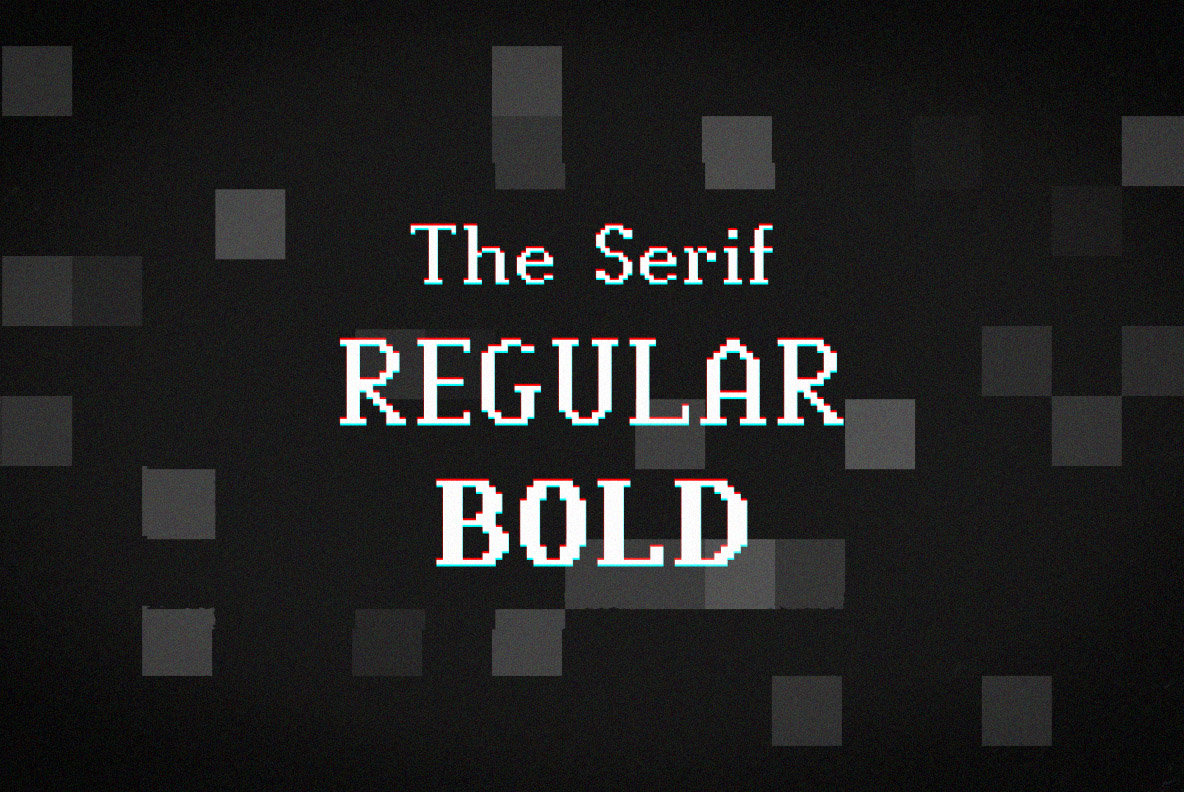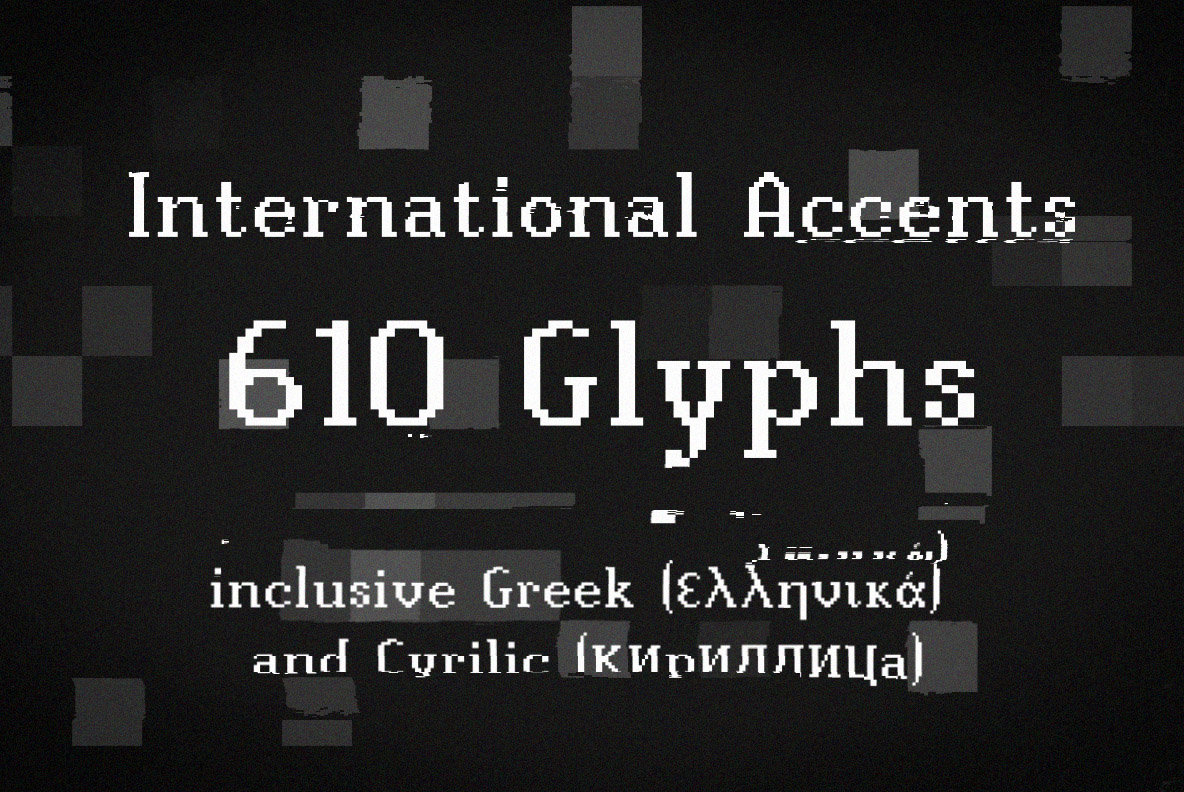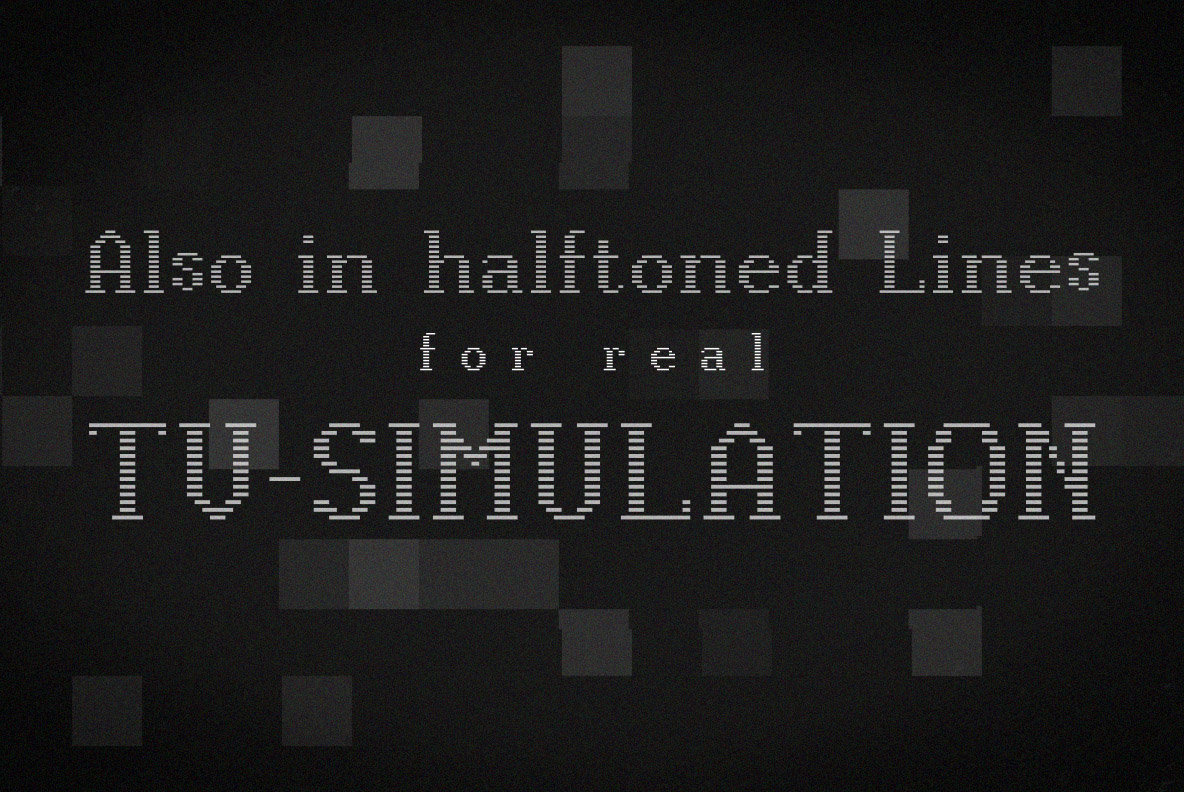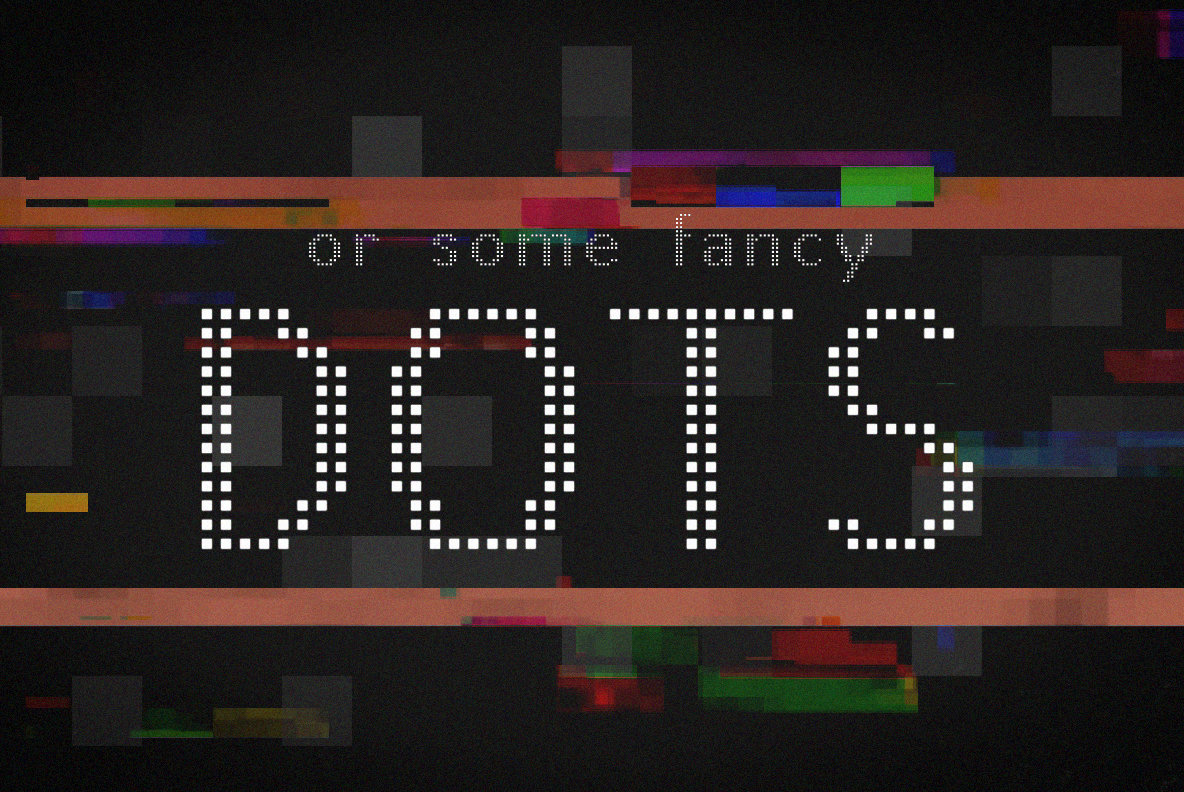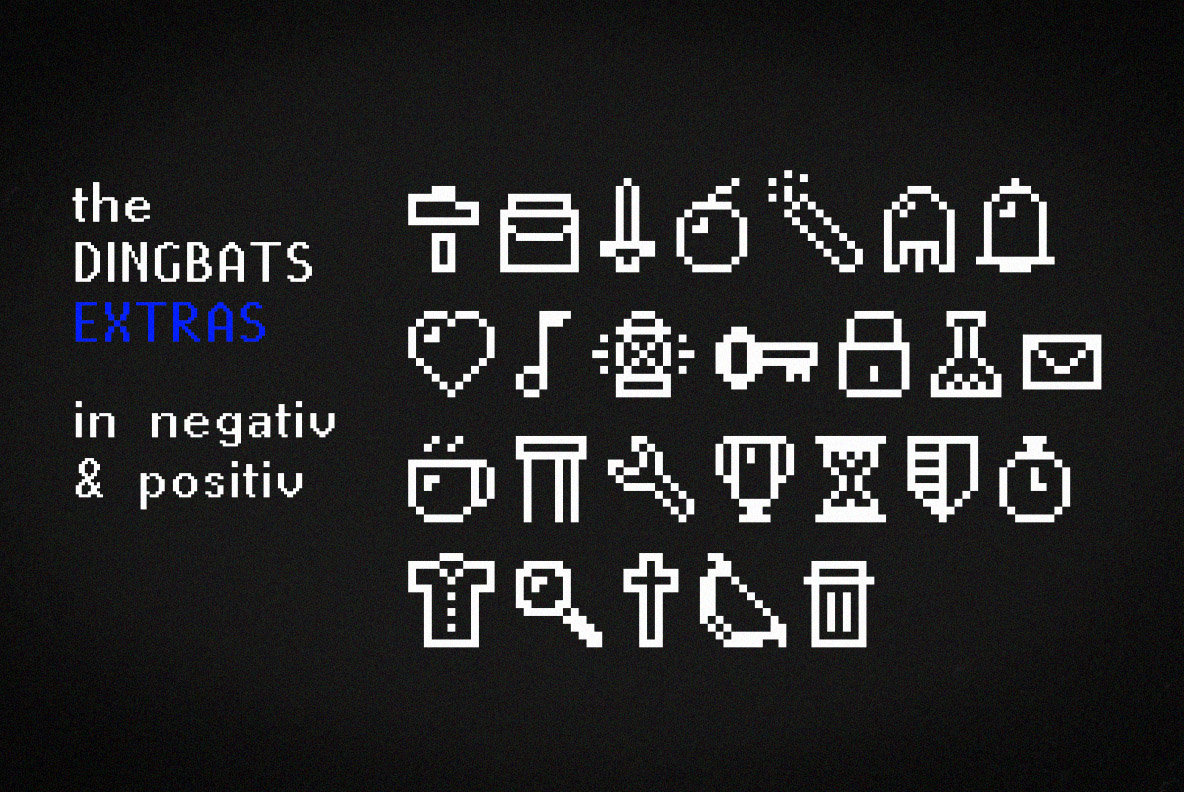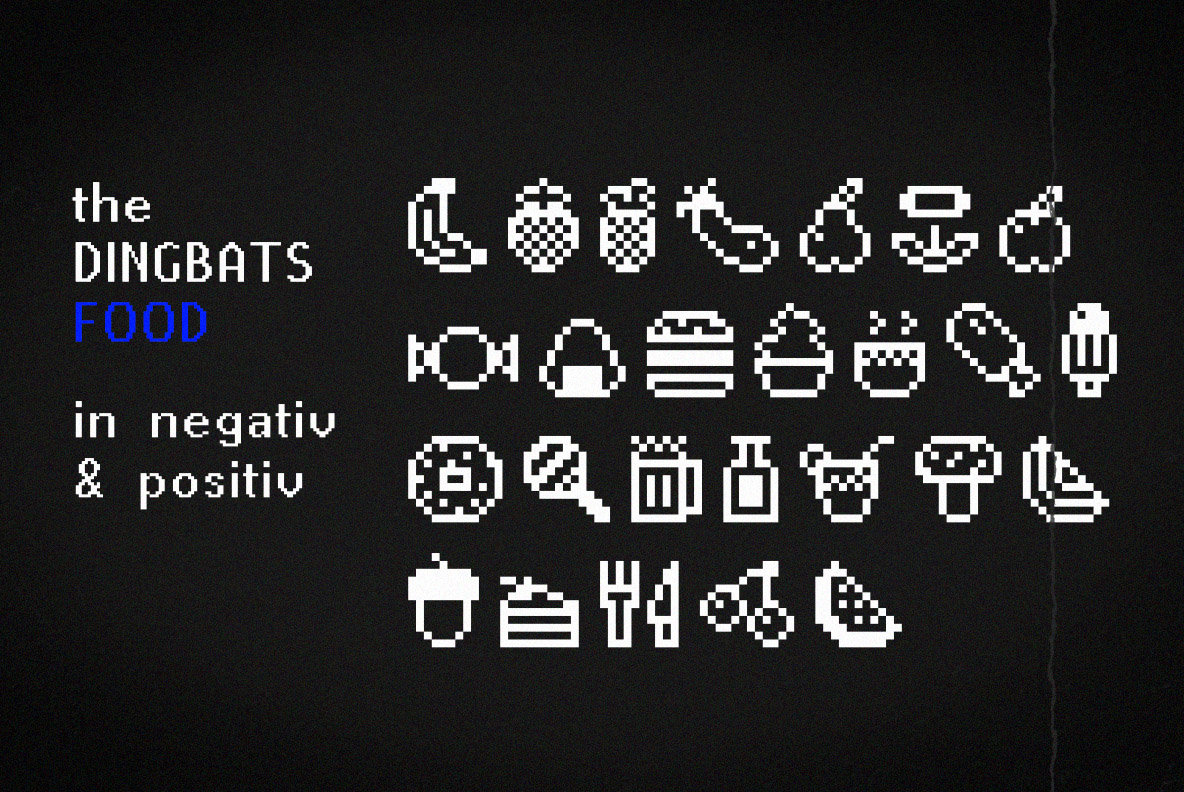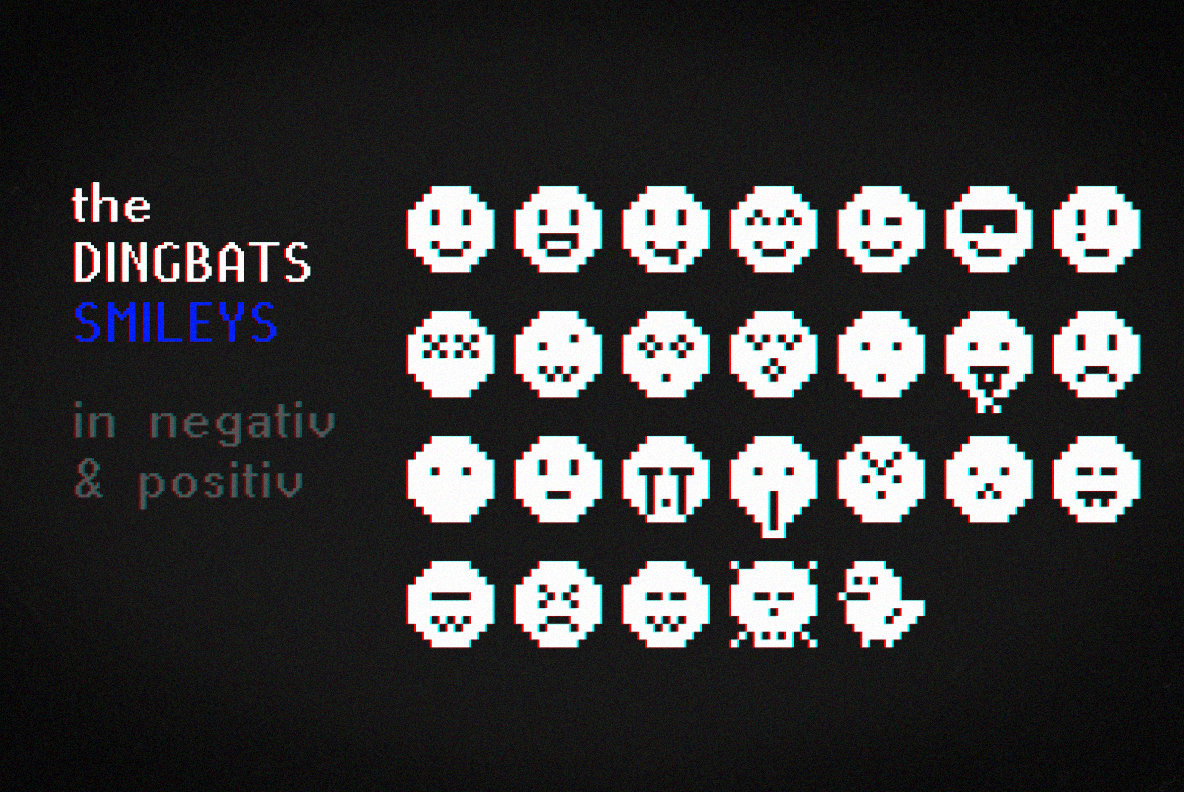
Pixie Font
Pixie is a modern pixel font family with 15 styles. Pixel = only 8Bit Games? No! This font suits also well to movie-titles, tech-logos, party-visuals, website-scripts and so on. Works great in small and big sizes.